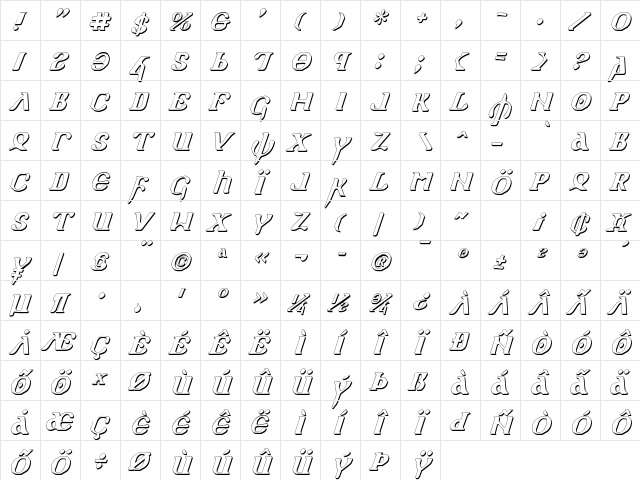
Holy Empire Shadow Italic Shadow Italic
| Designer | Dan Zadorozny |
Design Context for Holy Empire Shadow Italic Typeface
Holy Empire Shadow Italic is built around its visual character rather than neutral utility — its distinctive forms are designed to make an impression at display sizes. The slanted form adds forward momentum and visual energy.
Font Pairing: Pair with a clean neutral sans-serif for body copy to let Holy Empire Shadow Italic's character lead without overwhelming the composition.
Pro Tip: Treat Holy Empire Shadow Italic as the centrepiece of your typographic hierarchy. One strong heading set in a decorative face can carry an entire layout.